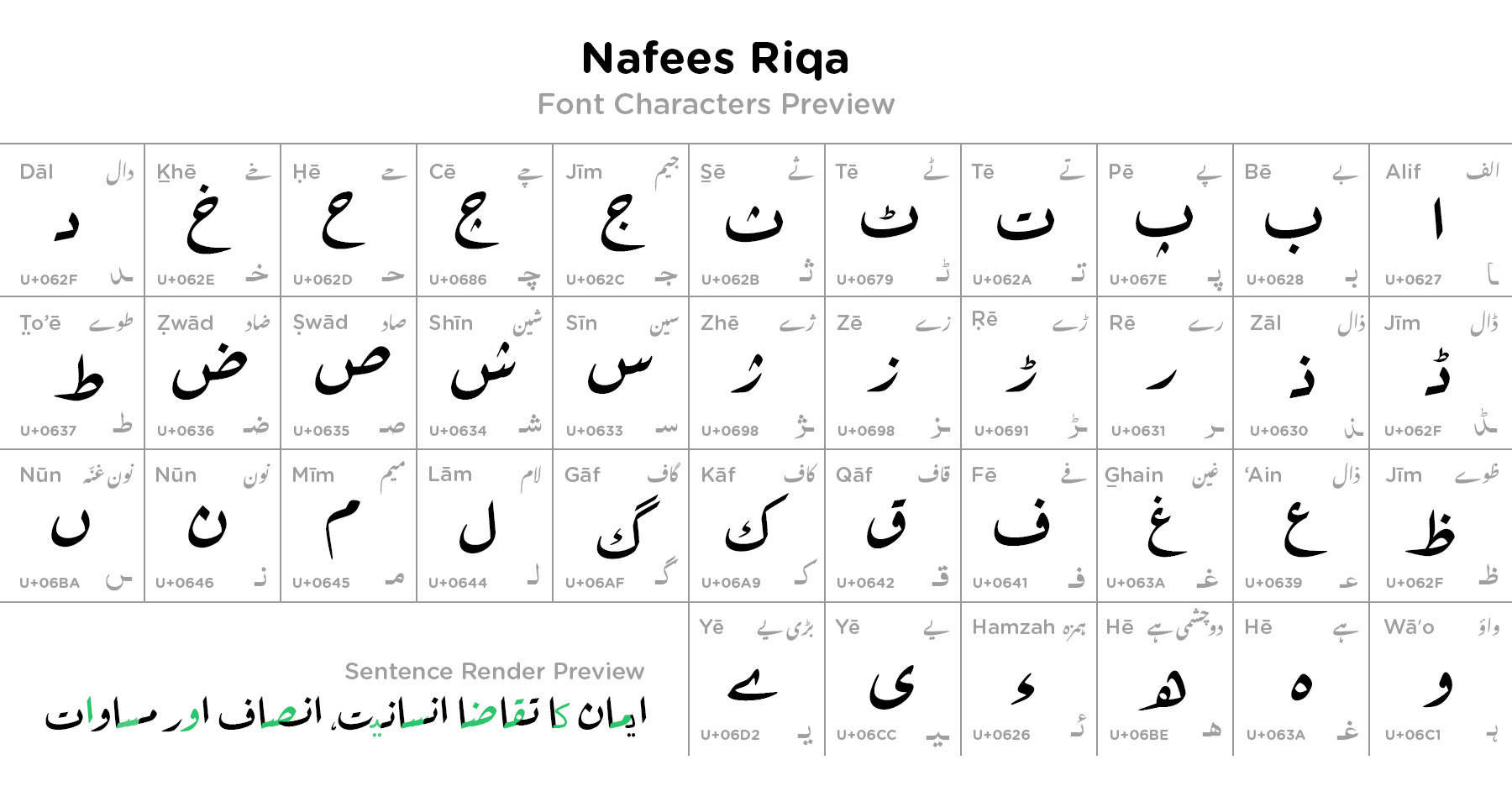
Nafees Riqa, released by the Center for Research in Urdu Language Processing (CRULP) and designed by Jamil-ur-Rahman, is a Qalam-inspired handwritten Urdu font. Rooted deep in the traditional Ruqaa script, it carries a distinctive charm with its thick letters, uneven spacing, and rounded corners, enhanced by thin, pointy edges. With 185 characters and a huge list of 782 glyphs, the font provides enough room for design modification according to your needs. Additionally, it supports Arabic, Latin, and symbols, enabling diverse typographic expression. Its changing thickness, with thin and pointy tips and denser middles, mimics the strokes of a Qalam, adding authenticity to its appearance.
The font gives an informal look with its irregular letterforms, condensed and cursive ends, and uneven spacing, making it ideal for conveying a personal touch in short textual blocks. However, its untidy appearance may affect readability, particularly in longer passages. Nafees Riqa finds its use in applications such as logos, poetry, social media posts, and creative posters, where its unique looks can make your text shine. While it may not be suited for extensive reading, its character design adds flair and personality to your given text.